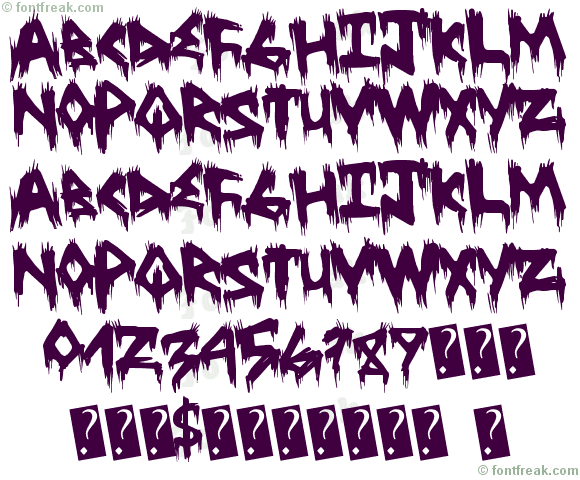
TreehausHorror
About TreehausHorror
TreehausHorror by XEROGRAPHER FONTS is a striking display typeface that captures the essence of horror and whimsy in a single glance. This font is characterized by its jagged, irregular strokes that resemble branches or roots, evoking a sense of the eerie and the unknown. The heavy weight of the strokes combined with sharp contrasts creates a dramatic visual impact, making it perfect for projects that require a bold statement. The spacing between the letters is intentionally varied, lending an organic, chaotic feel that enhances its unique character.
Ideal for use in horror-themed projects, TreehausHorror is perfect for movie posters, haunted house flyers, and spooky event invitations. Its distinctive style also makes it suitable for merchandise related to Halloween or fantasy genres, such as T-shirts, stickers, and book covers. Graphic designers looking to add a touch of the unconventional to their work will find this font an exciting choice, while small business owners in niche markets, such as escape rooms or horror-themed cafes, can leverage its unique aesthetic to attract attention.
What sets TreehausHorror apart is its ability to convey a playful yet unsettling vibe, striking a balance that appeals to a wide audience. Its distinctive visual style and free availability make it an essential addition to any designer's toolkit, ensuring that your projects stand out in an increasingly crowded visual landscape.